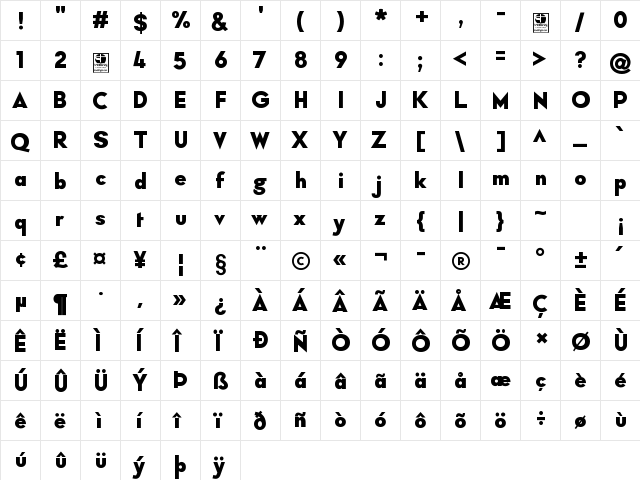
Typo Formal Demo Bold
| Foundry | StudioTypo |
| Designer | Mehmet Abac |
Design Context for Typo Formal Demo Typeface
Typo Formal Demo offers clean, dependable letterforms without strong stylistic allegiance, making it a practical choice for designers who need flexibility. Its bold stroke weight gives it real presence on the page.